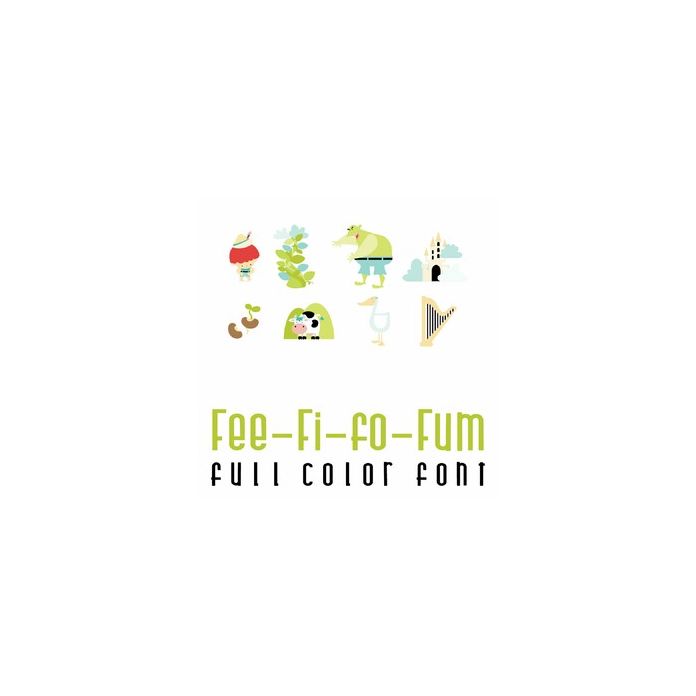
This adorable full-color doodlebat font features 26 images from the classic fairytale, Jack and the Beanstalk. Perfect for nurseries, cards, crafts, gifts, decor, scrapbook pages, planner stickers, and more!